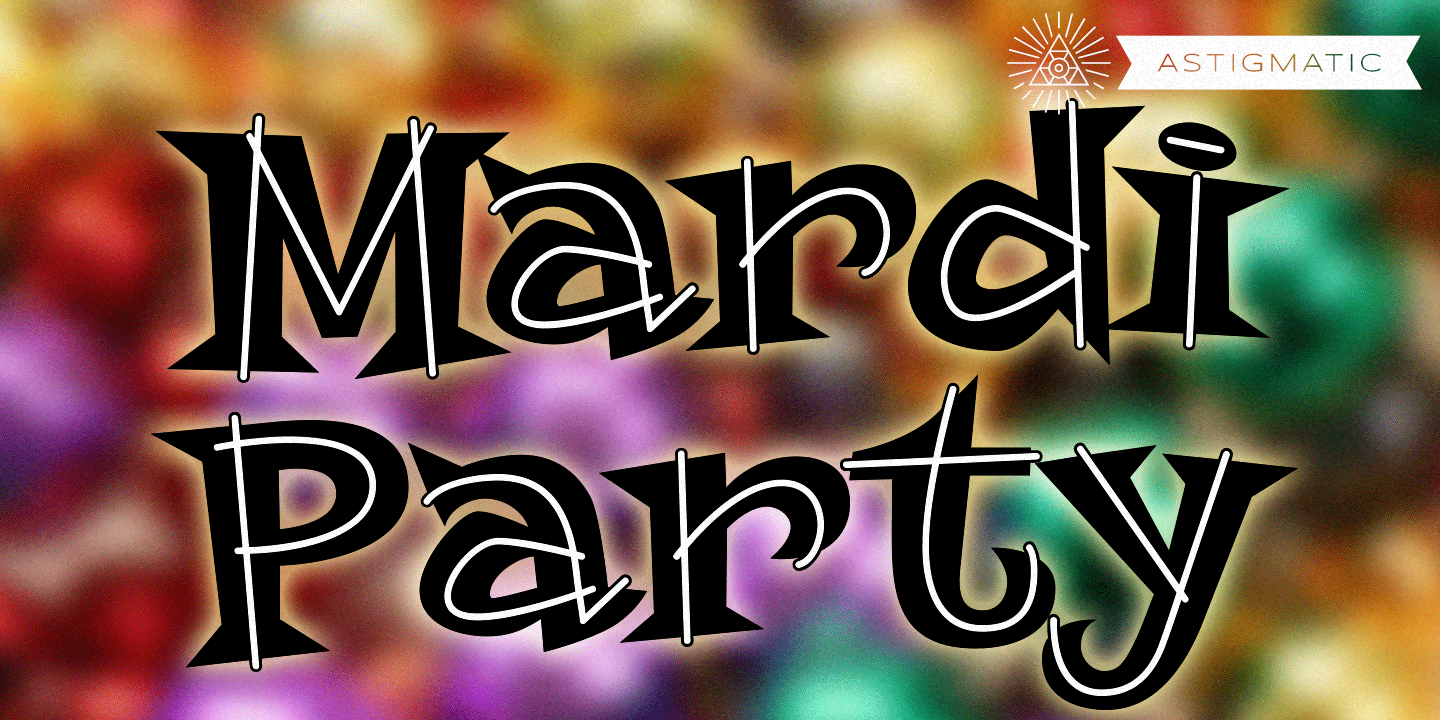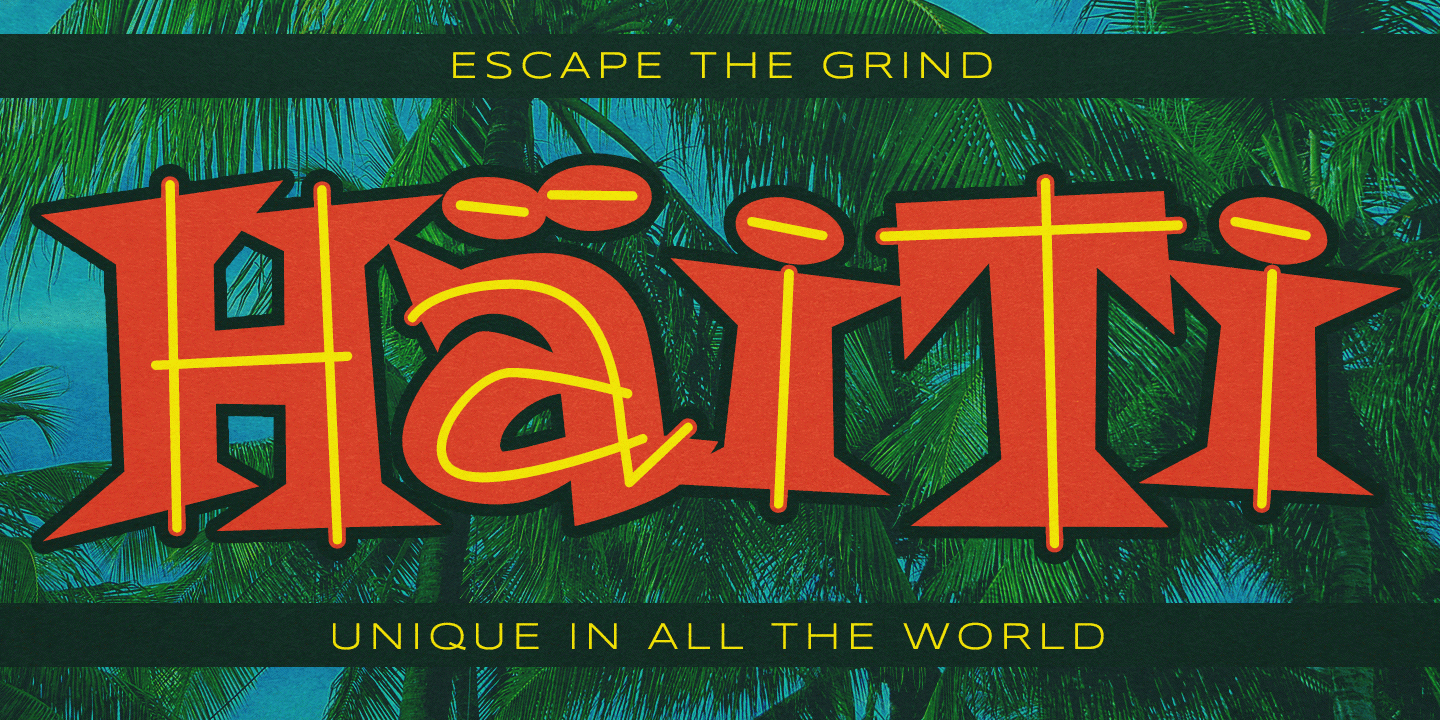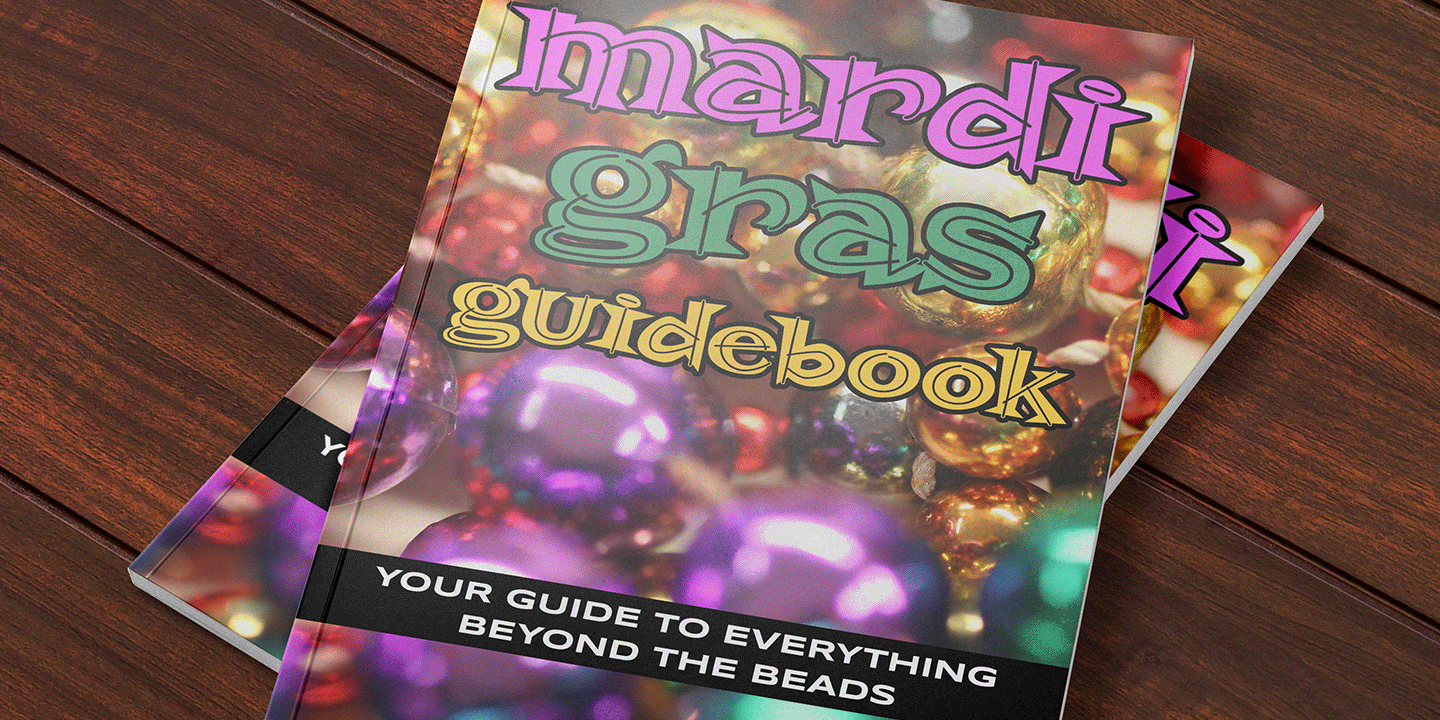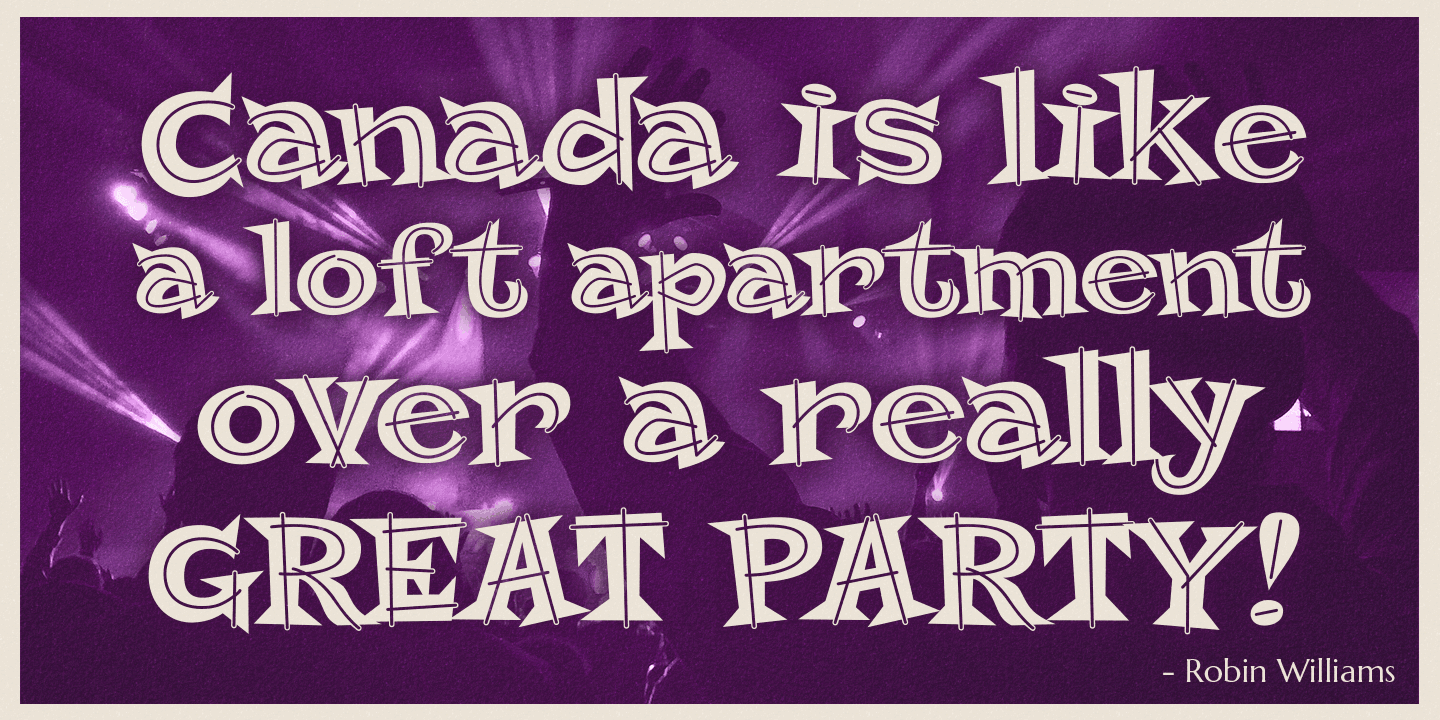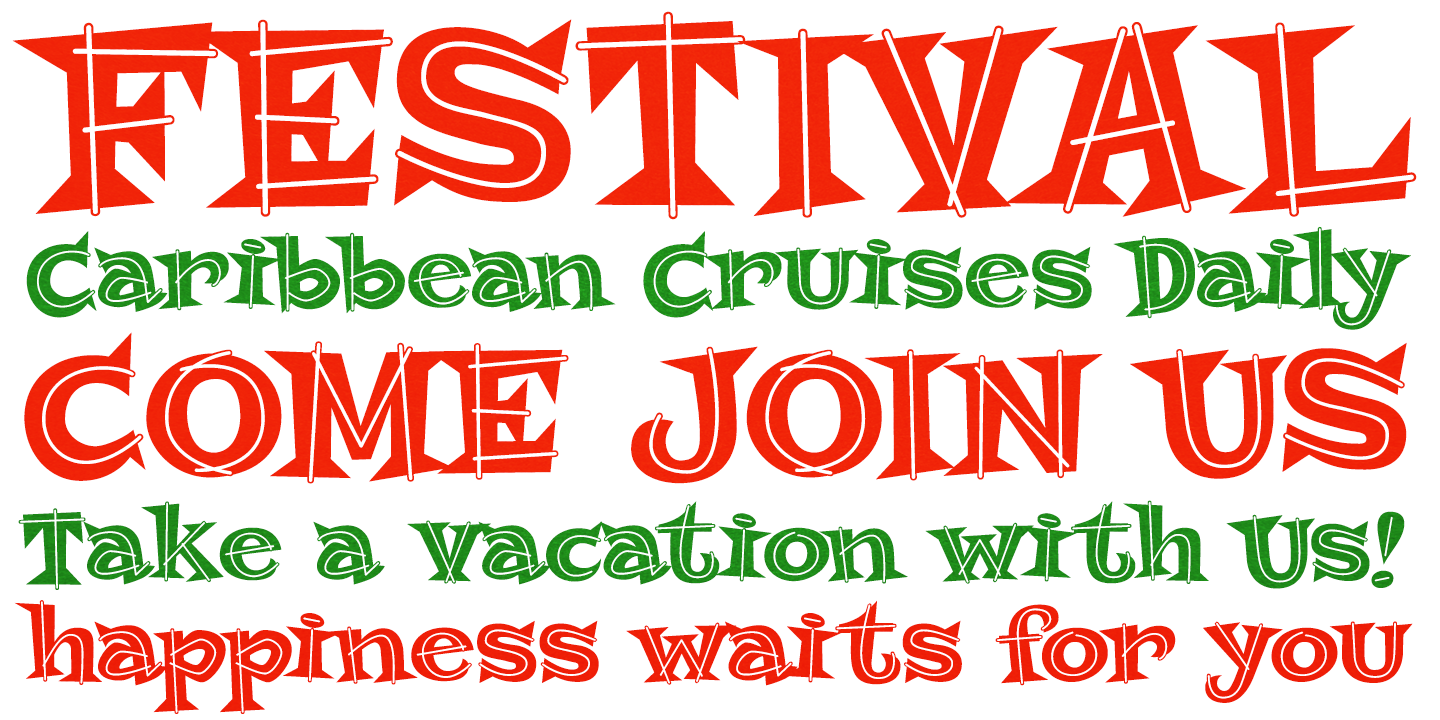
MardiParty
Font Family by Astigmatic One Eye
MardiParty is a totally wild latin typestyle with inlines that grow out of it. Inspired by hand-lettering from a 1950's Haiti travel brochure, where the original lettering was just the word "Haiti", this font proved a fun challenge to flesh out. The end result, a funktastical tribute to its origins, perfect for any celebration themed invitations, logotypes, or outlandish branding.